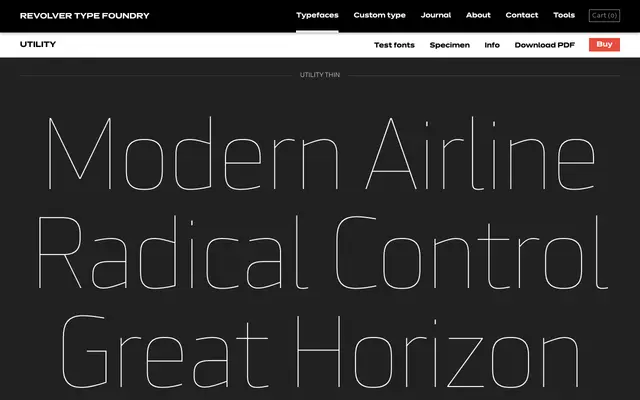
A seven-weight grotesque sans from Revolver Type Foundry, built for functional, technical and editorial applications.
Utility spans seven weights from Thin to Black, offering a clean, upright grotesque suited to digital interfaces, editorial layouts and technical documentation. The naming and specimen copy lean into themes of productivity, engineering and systems, giving the family a deliberately functional character. No italics or condensed cuts are present, keeping the family focused and straightforward.
The typeface presents clean, upright forms across seven weights with no italics visible, consistent with a functional grotesque or neo-grotesque without expressive variation.